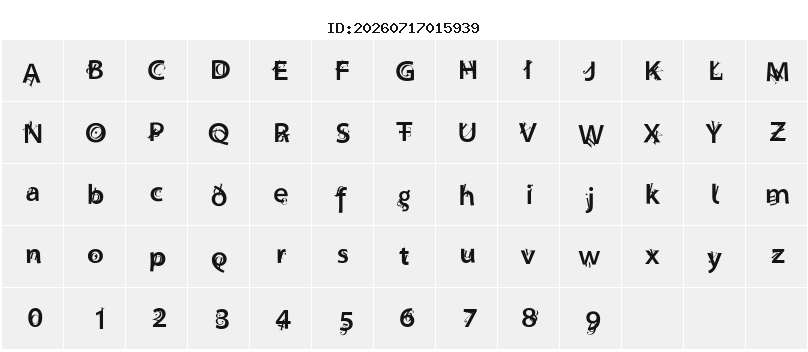
AIFusion Preview
• Font Name: AIFusion
• Full Font Name: AIFusion
• PostScript Name: AIFusion
About AIFusion.ttf
AIFusion.ttf is a modern, elegant sans-serif font designed for ultimate readability and visual harmony. Perfect for branding, headlines, web design, and print materials.